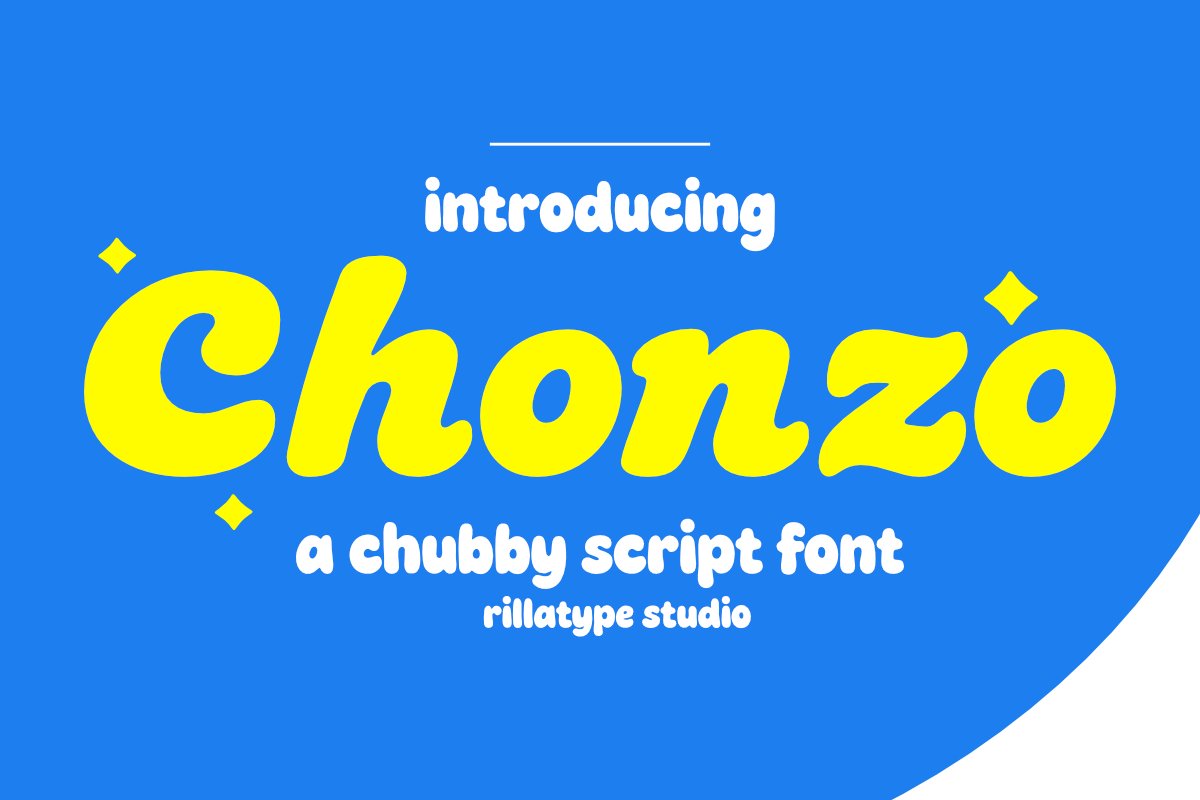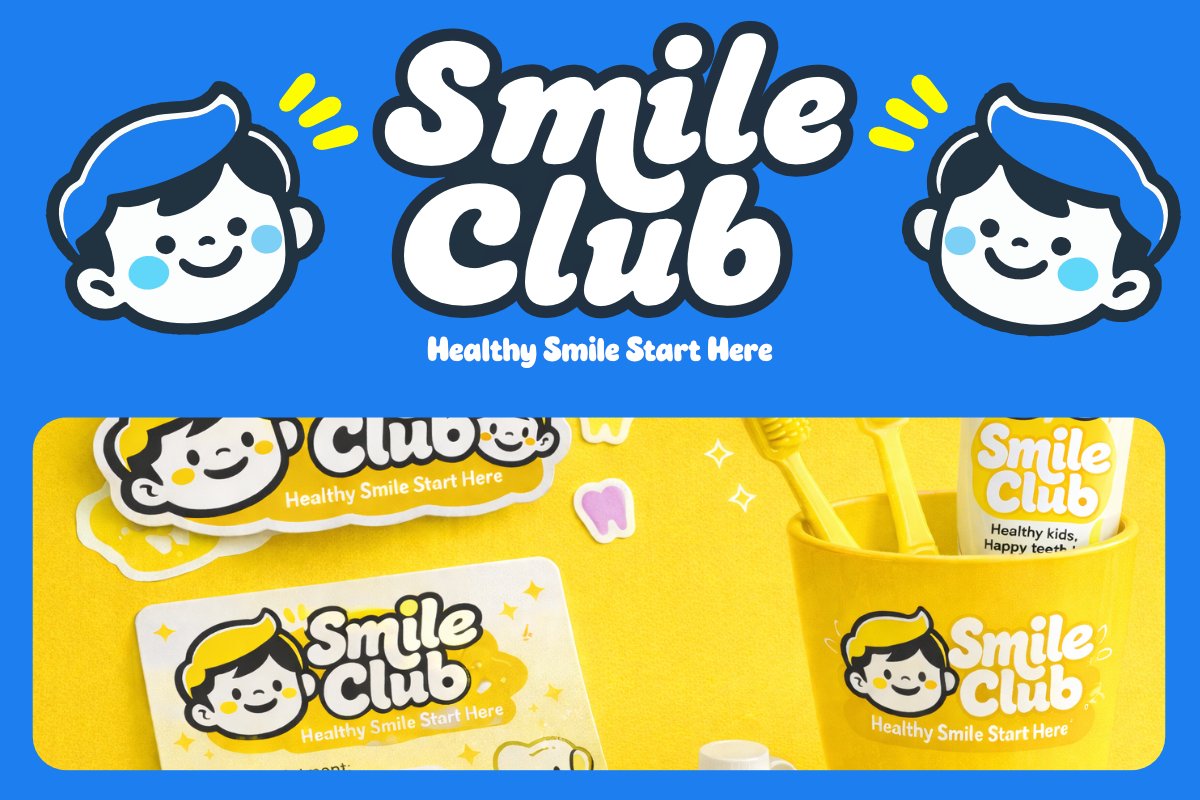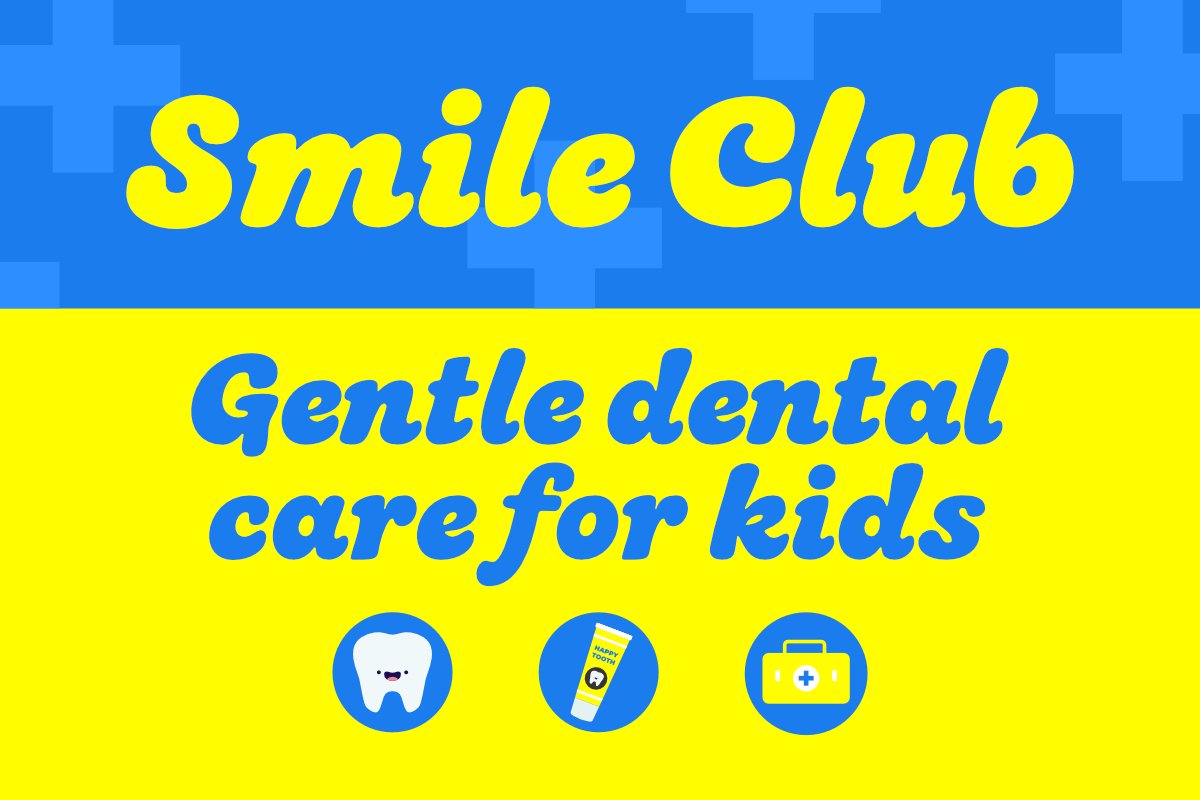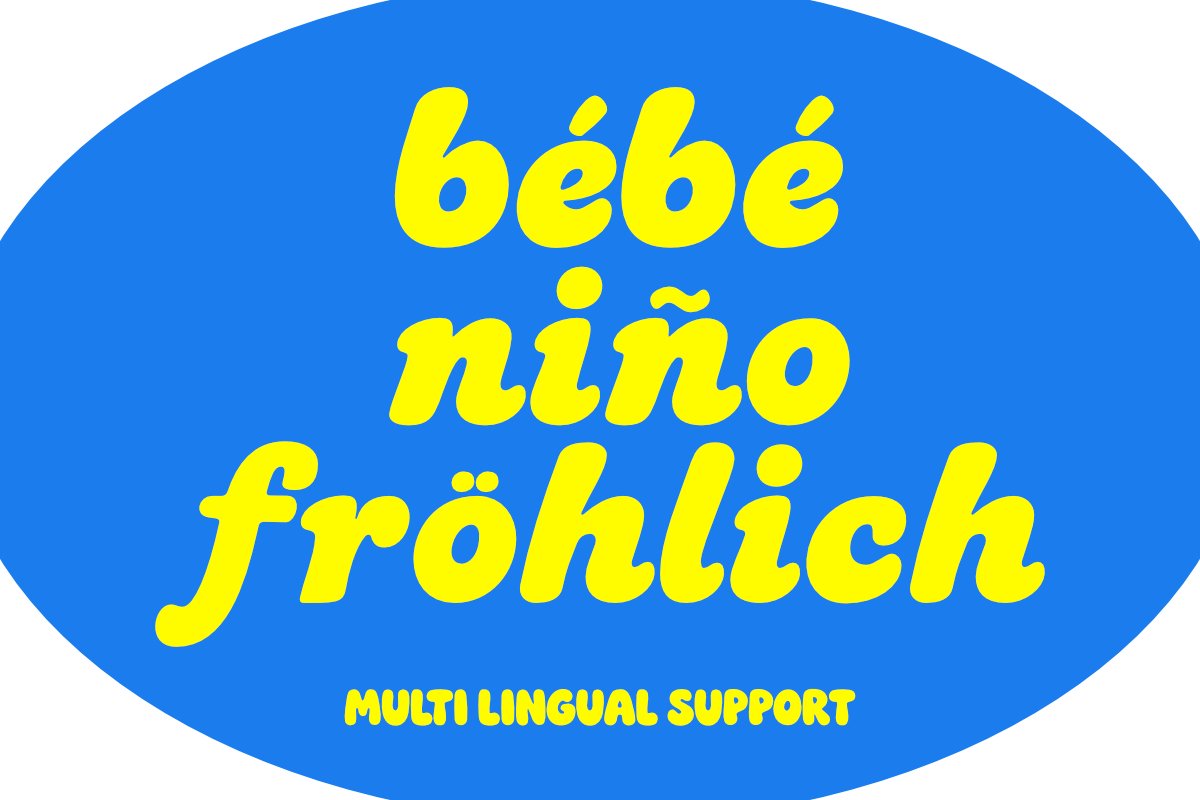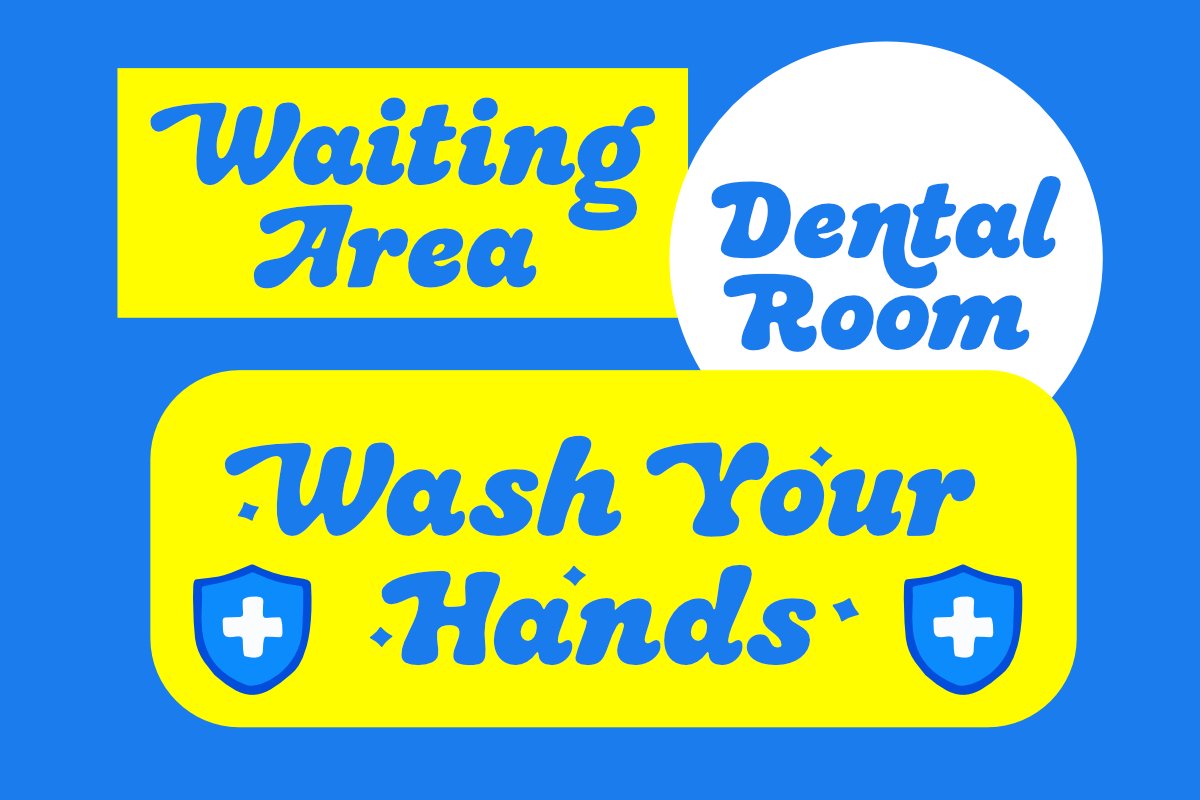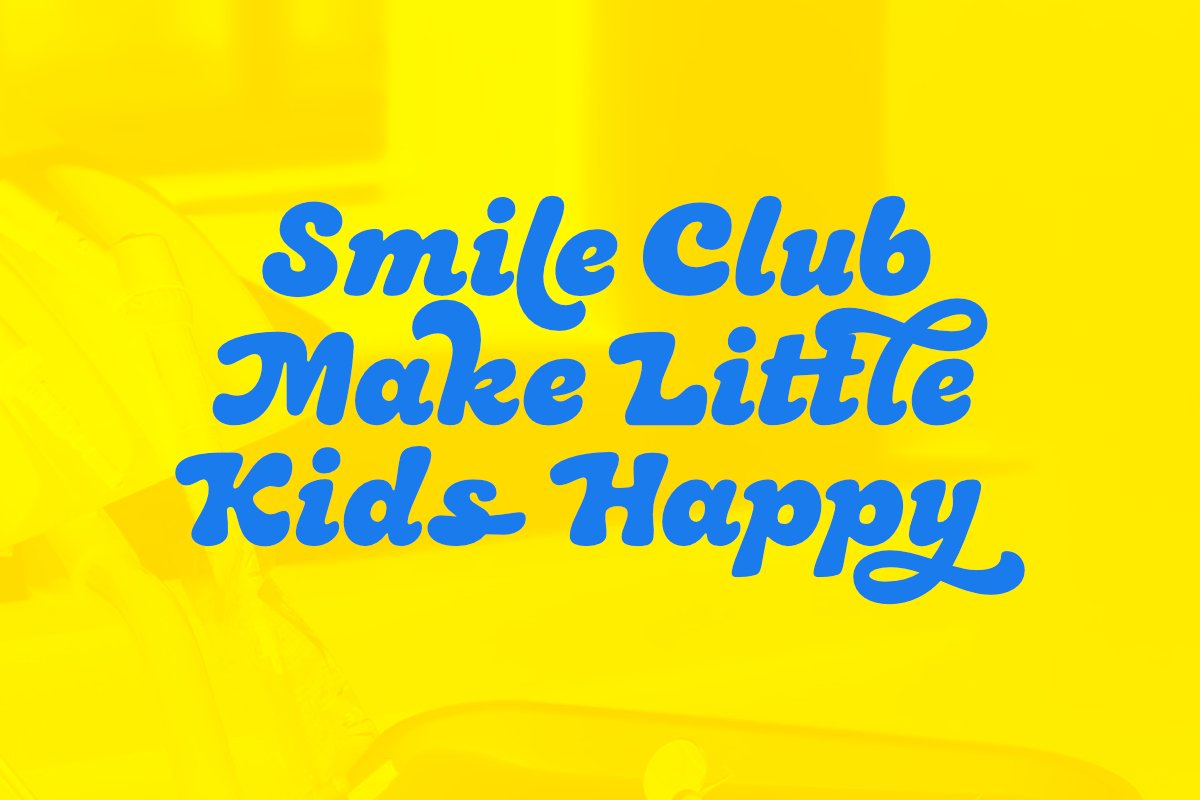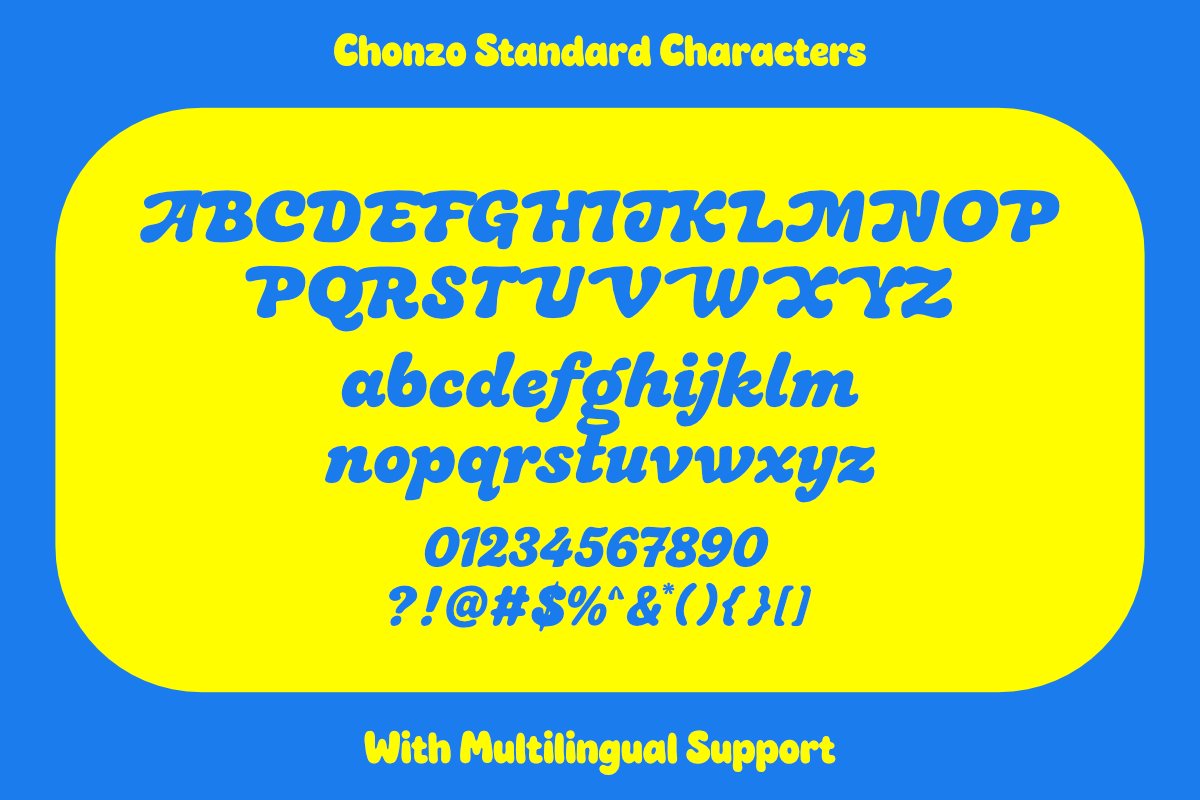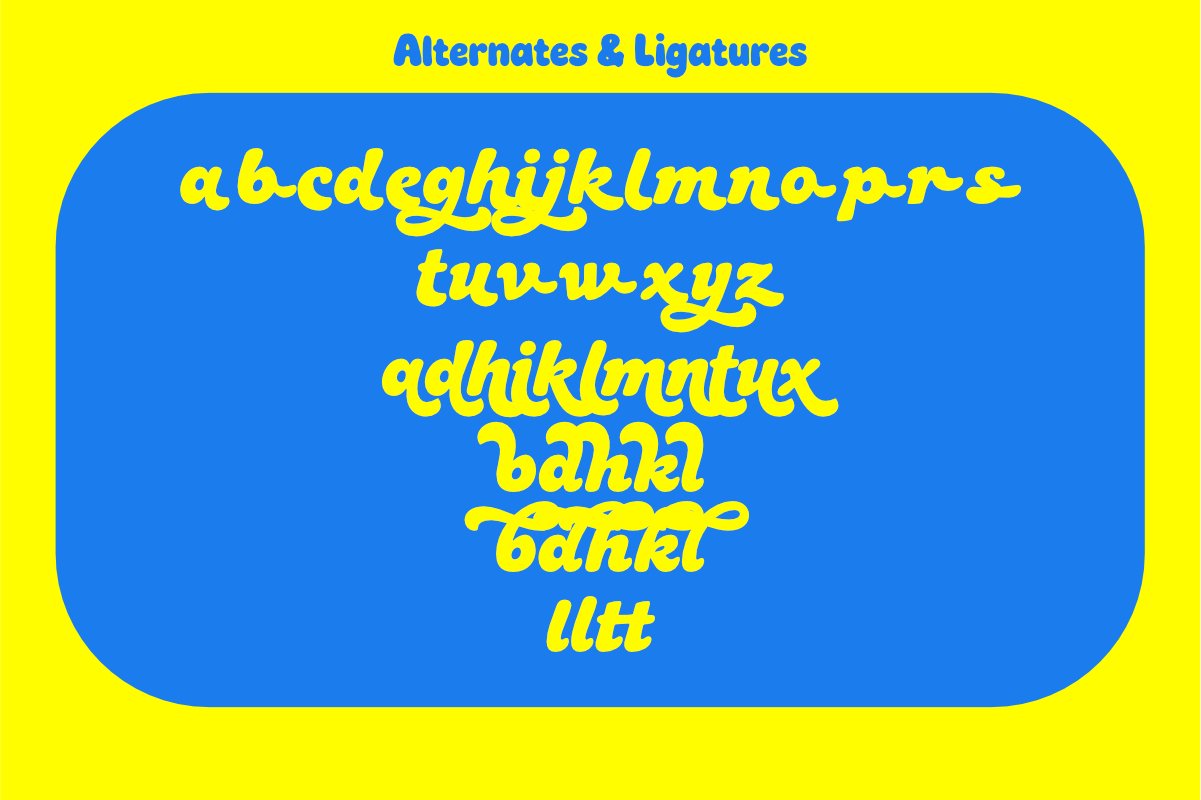
Chonzo is a chubby script font with thick strokes, rounded shapes, and a playful handwritten feel. The letters look bold, soft, and friendly, giving off a cheerful and energetic vibe that feels fun and approachable. It works great for headlines, posters, packaging text, social media graphics, and branding designs that want a bright and easygoing look.
• Uppercase & lowercase
• Numbers and punctuation
• Alternates Characters or Ligatures
Chonzo Chubby Script
Chonzo is a chubby script font with thick strokes, rounded shapes, and a playful handwritten feel. The letters look bold, soft, and friendly, giving off a cheerful and energetic vibe that feels fun and approachable. It works great for headlines, posters, packaging text, social media graphics, and branding designs that want a bright and easygoing look.